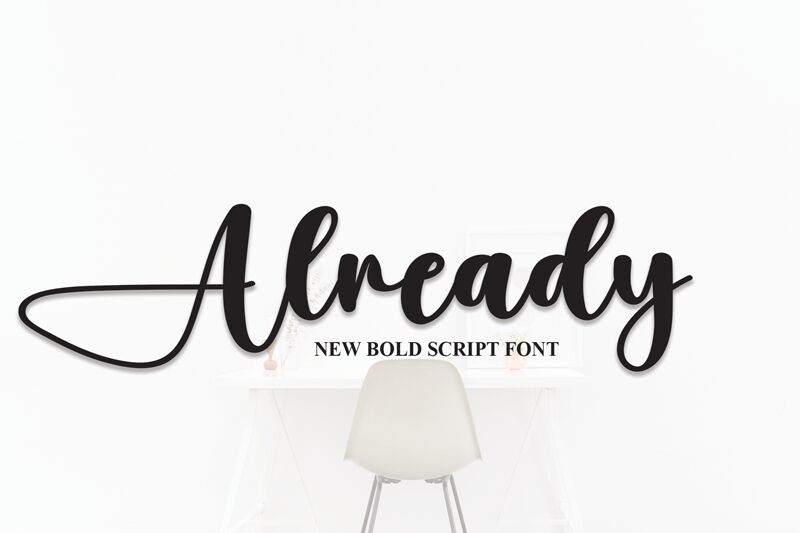
Already
Already, a modern calligraphy font designed by Scratchones, captures the essence of elegance with its semi-light weight. Its flowing strokes and delicate curves add a touch of sophistication to any design project.
Perfect for wedding invitations and stationery, Already brings a sense of romance and charm. With its graceful letterforms, this font is also well-suited for branding materials such as logos and business cards. Whether used for personal or professional projects, Already will make a lasting impression with its refined and stylish aesthetic.
The latest style letters are perfect for wall displays, wedding invitations, social media post logos, advertisements, product packaging, product designs, labels, photography, watermarks, invitations, stationery, and any project that requires taste handwriting.
Perfect for wedding invitations and stationery, Already brings a sense of romance and charm. With its graceful letterforms, this font is also well-suited for branding materials such as logos and business cards. Whether used for personal or professional projects, Already will make a lasting impression with its refined and stylish aesthetic.
The latest style letters are perfect for wall displays, wedding invitations, social media post logos, advertisements, product packaging, product designs, labels, photography, watermarks, invitations, stationery, and any project that requires taste handwriting.